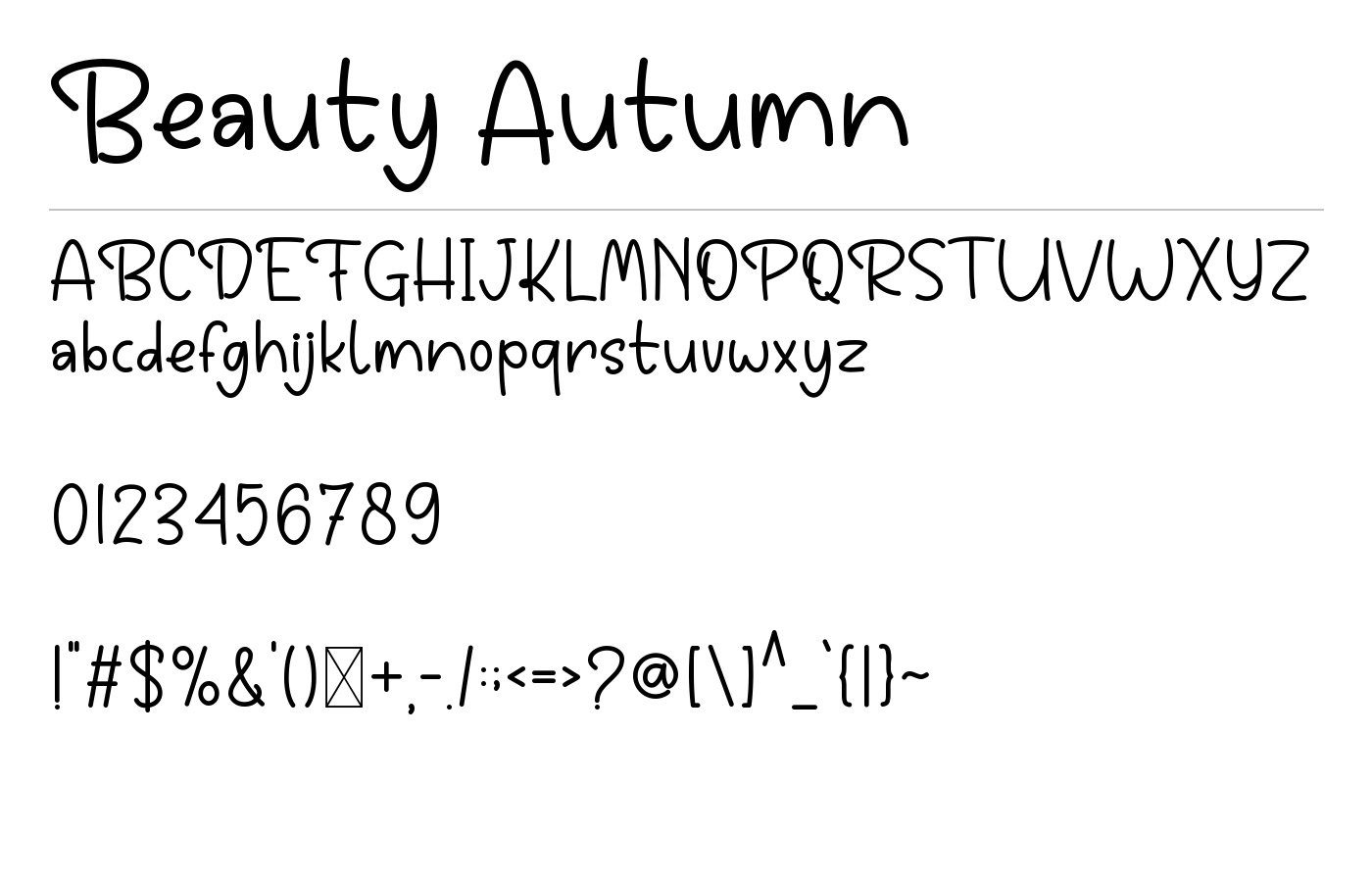
Beauty Autumn is a friendly, handwritten sans serif font with a casual and inviting feel. Its slender weight, medium x-height, and slightly rounded strokes create an approachable and modern look, perfect for informal and creative designs. This font works well for greeting cards, branding, social media, and any project needing a personal, playful touch with clear readability.
Beauty Autumn Font
About Beauty Autumn Font
| Font family | Beauty Autumn Font |
| Designer | Risma Ramawi |